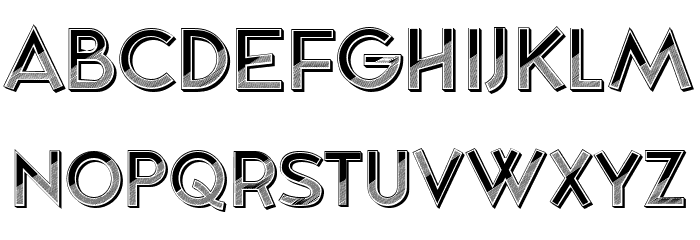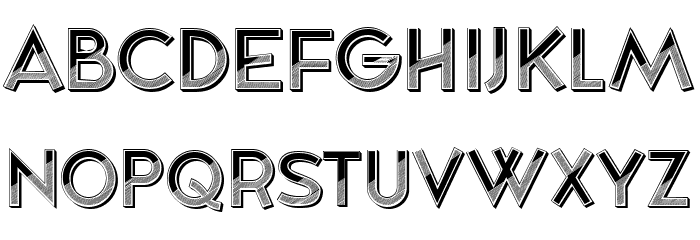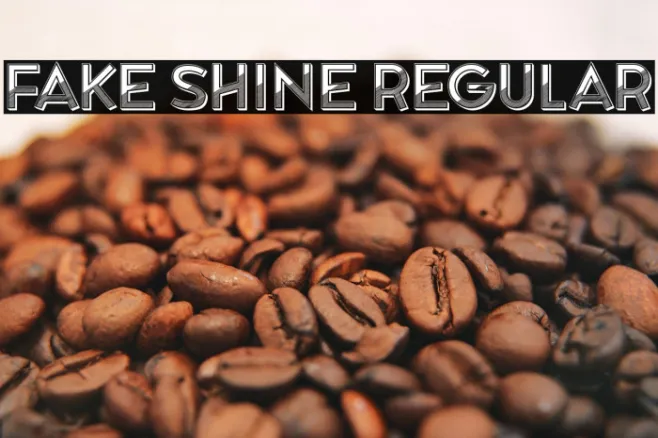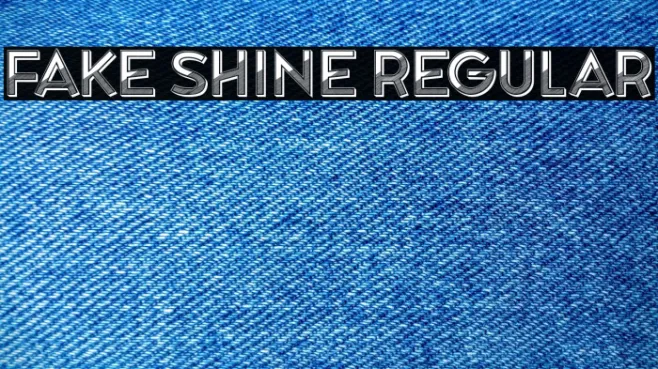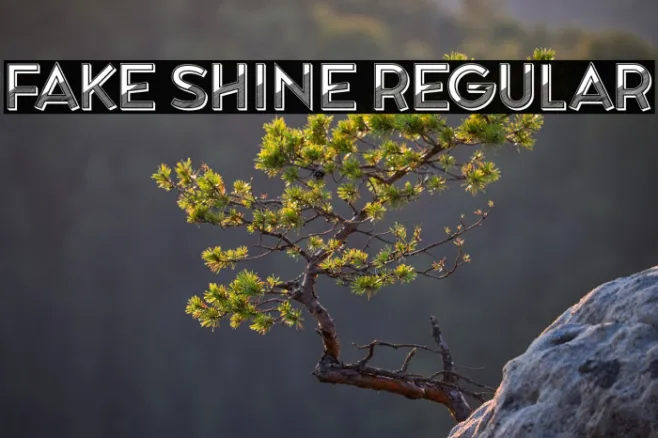
Fake Shine Regular Font
This font features a bold and striking design with a three-dimensional effect that gives it a unique, eye-catching appearance. The letters are constructed with a combination of solid fills and outlined shadows, creating a sense of depth and movement. The geometric shapes are consistent throughout, with sharp angles and clean lines that contribute to its modern and dynamic style. The overall aesthetic is both futuristic and retro, making it versatile for various design applications. Its distinct look is perfect for projects that require a strong visual impact.
A bold, three-dimensional font with a modern and dynamic style.
- Proposed Projects: Ideal for headlines, posters, branding, and any design needing a bold statement.